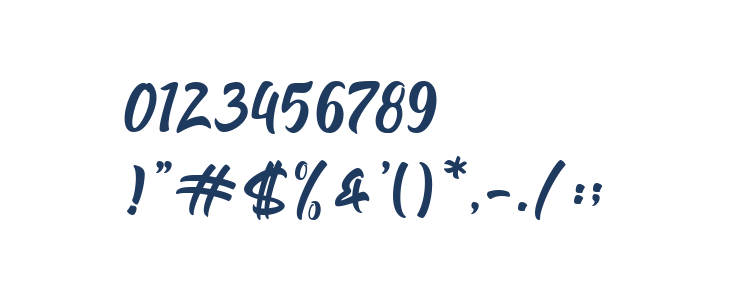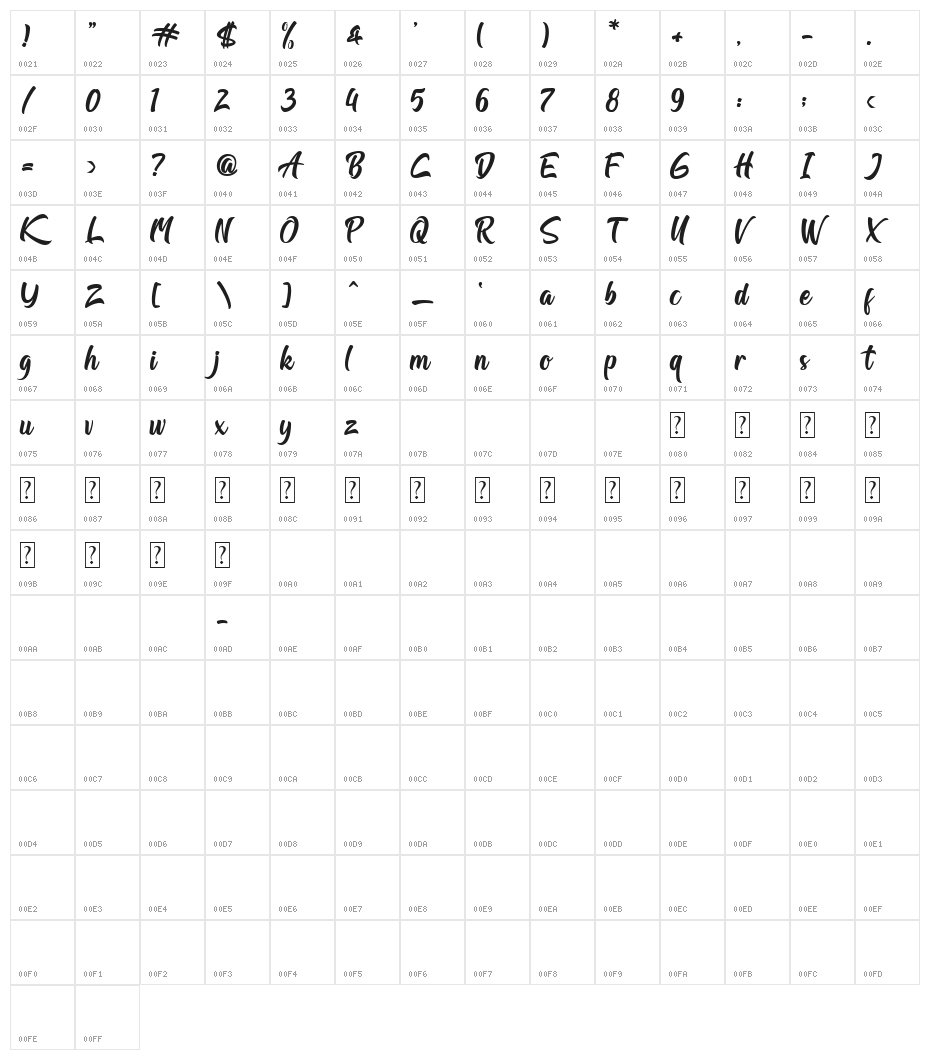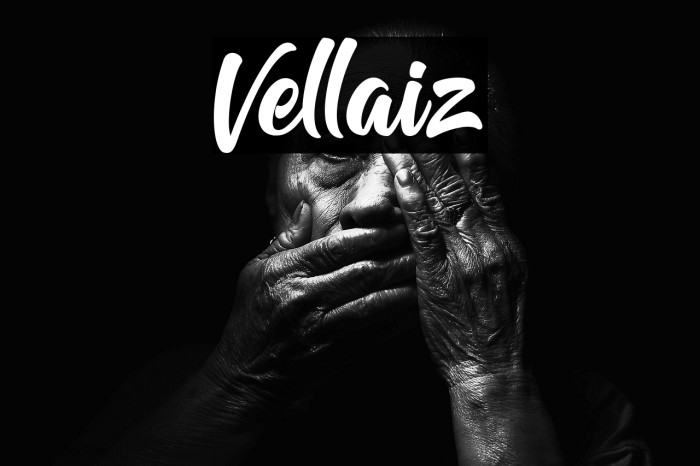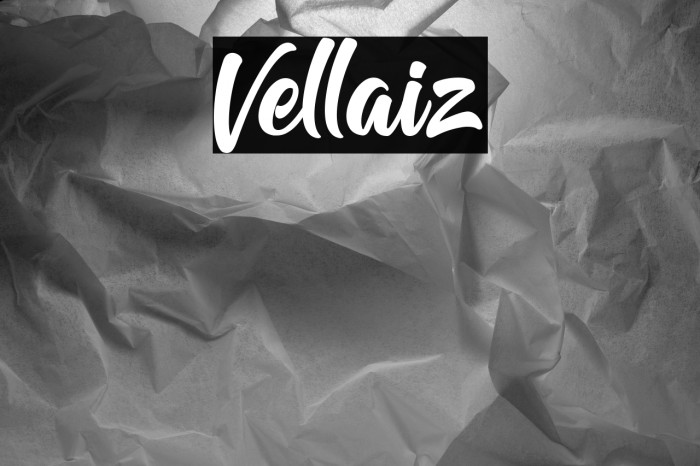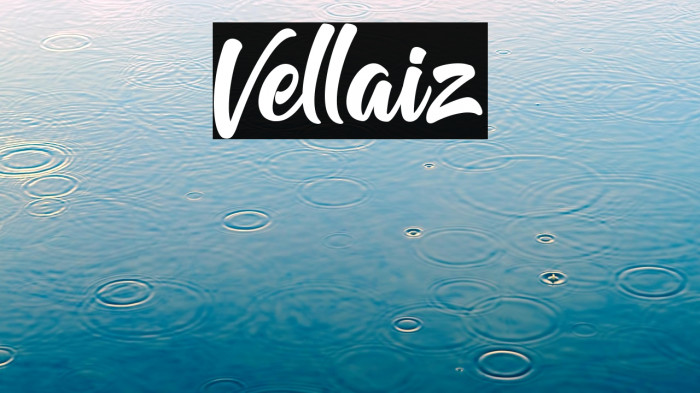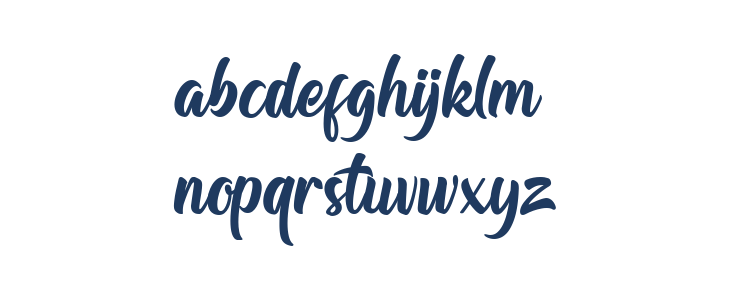
Vellaiz Font
Vellaiz Description
This font features a bold, flowing script style that exudes elegance and dynamism. The characters are designed with a slight slant, giving them a sense of movement and fluidity. The uppercase letters are particularly striking, with sweeping curves and loops that create a sense of grandeur. The lowercase letters maintain a consistent style, with rounded forms and smooth connections between strokes. The numerals are equally expressive, maintaining the same boldness and fluidity as the alphabetic characters. Special characters are crafted with the same attention to detail, ensuring a cohesive look across all glyphs. This font is perfect for projects that require a touch of sophistication and flair.
Overall StyleElegant, Dynamic
Use CaseLogos, Headlines, Invitations
Proposed ProjectsIdeal for wedding invitations, branding, logos, and elegant packaging designs.